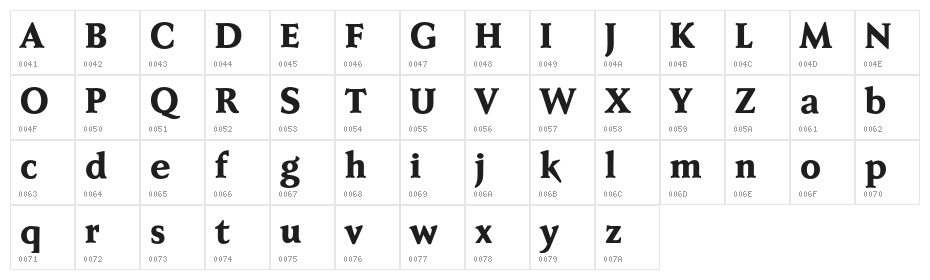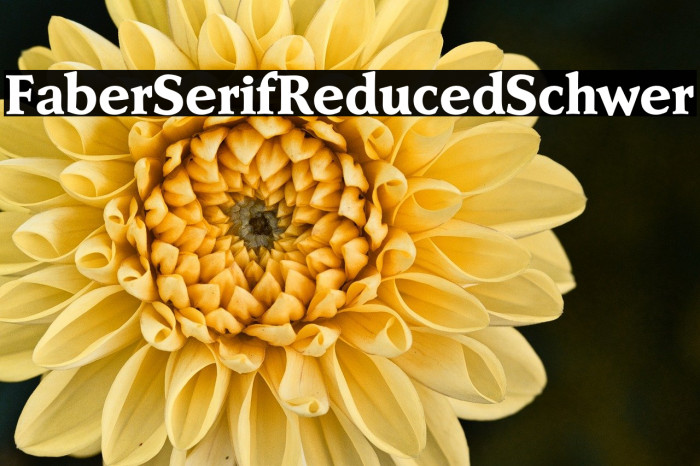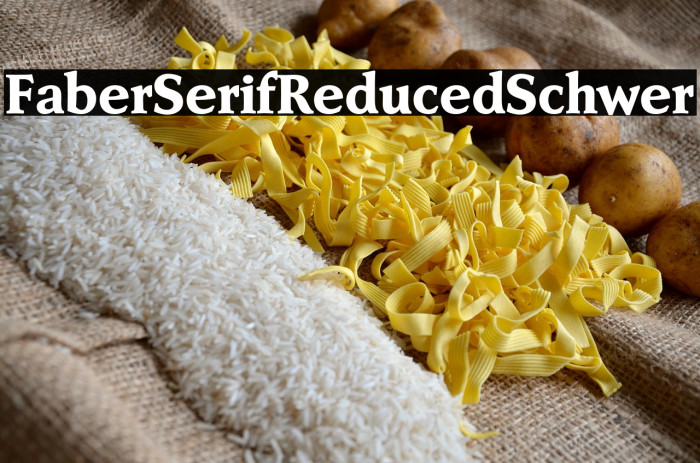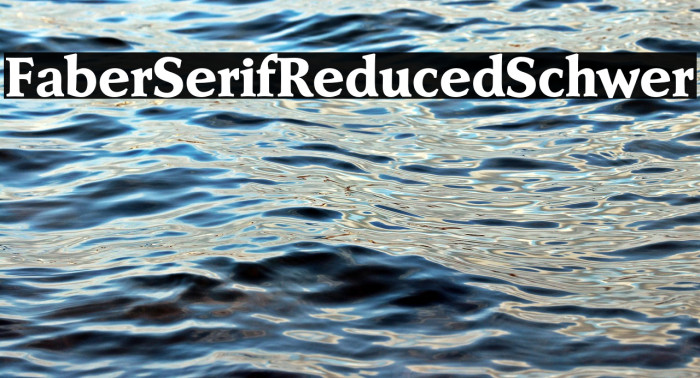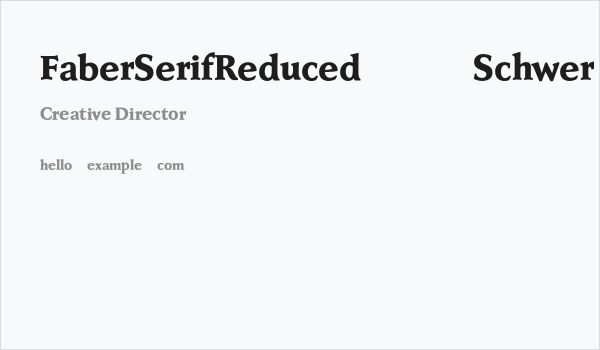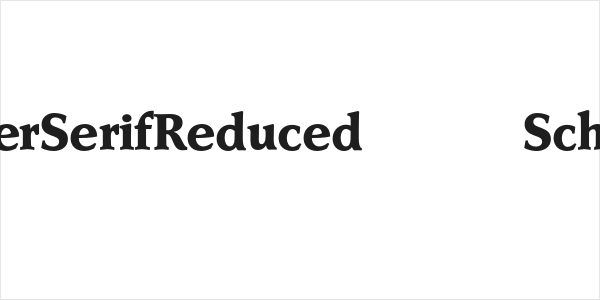
FaberSerifReduced-85Schwer Font
FaberSerifReduced-85Schwer Description
This font features a robust and classic serif design, characterized by its bold and authoritative presence. The serifs are pronounced, adding a traditional touch to the overall modern aesthetic. The uppercase letters exhibit a strong and commanding appearance, while the lowercase letters maintain a consistent and harmonious flow. The numerals are clear and easily distinguishable, complementing the alphabetic characters. Special characters are well-integrated, maintaining the font's cohesive style. This font's design is suitable for projects that require a blend of tradition and modernity, offering versatility in various applications.